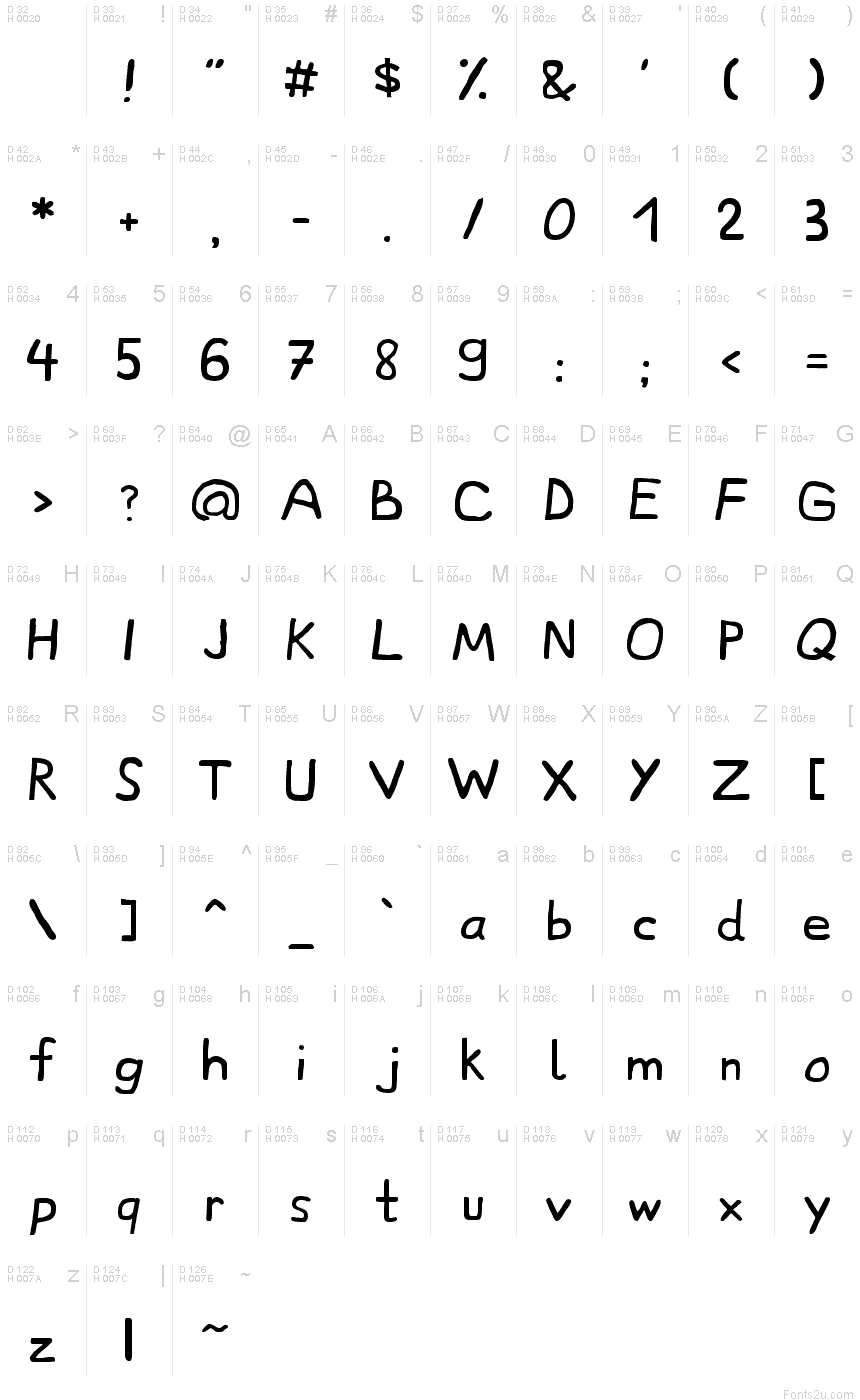
BMW Hisba Bahix
BMW Hisba Bahix font is a free handwritten font that feels like quick, confident notes sketched with a smooth pen. Its tall, narrow letters, rounded edges, and slightly tilted rhythm give it a breezy, informal voice—casual, but not messy. The even stroke weight keeps it clean and readable, so you get that hand-drawn charm without sacrificing clarity at smaller sizes.
Using BMW Hisba Bahix, you can bring a friendly tone to kids’ projects, journaling graphics, classroom printables, Instagram quotes, stickers, and playful product packaging. This free font shines when you let it breathe with generous line spacing, and it pairs effortlessly with a simple geometric sans serif for body text or captions.